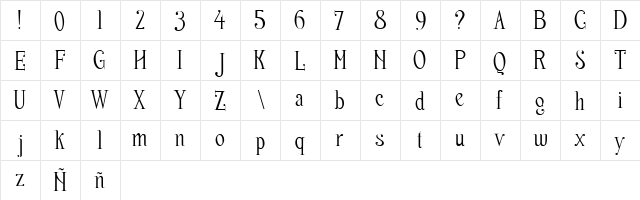
Nerea Regular
Design Context for Nerea Typeface
Nerea is a composed and adaptable typeface that performs quietly and consistently across a wide range of design contexts.